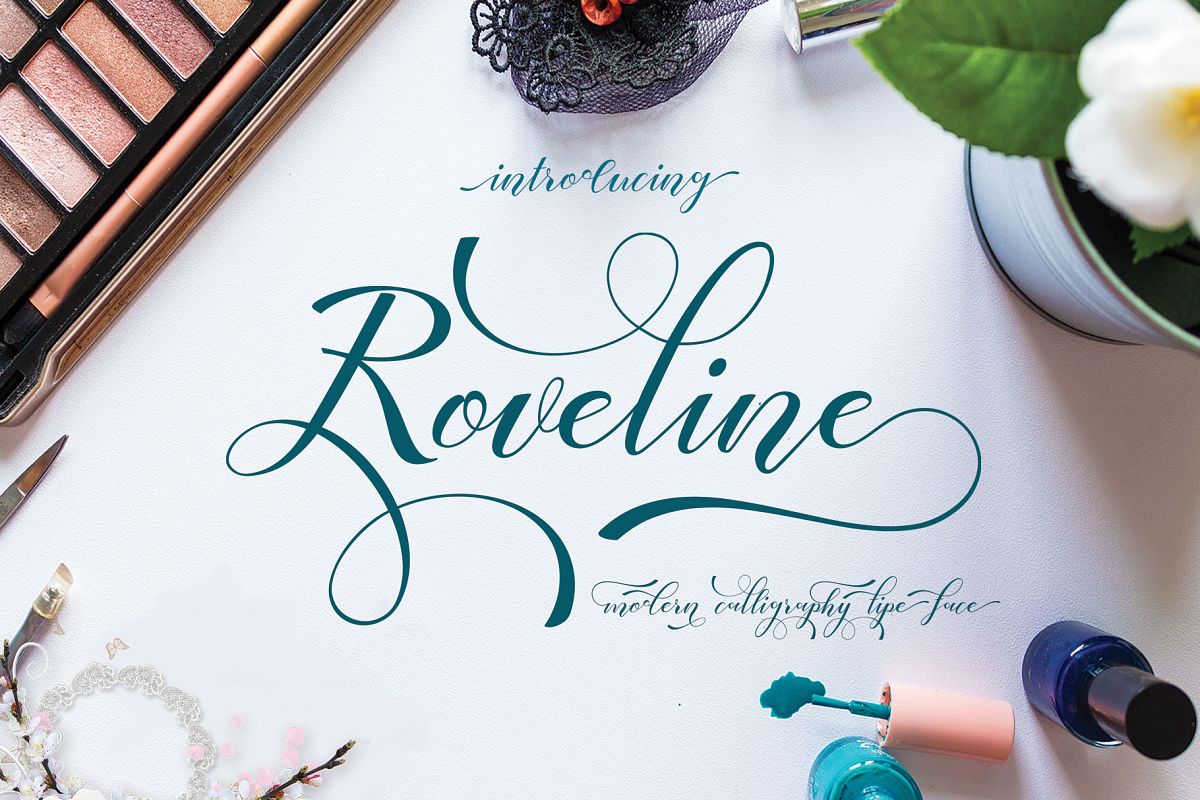
Roveline
Roveline script:
is a new modern variant of calligraphy from handmade text types. present for you to complete your script font collection.
If you are looking to add a touch of elegance to your current project do not miss this one, namely Roveline Script.You'll get yourself a remarkable collection of modern script font, each featuring many OpenType features and multiple languages. Beautiful, modern and made by hand, this magnificent collection are sure to give your toolbox typeface lift plump feasible.
Roveline Script : is a modern calligraphy font. Its beautiful swashes give it an elegant touch and it's fine lines make it perfect for adding an upscale and chic look. It can be used for signatures, logos, correspondences, wedding invitations, letterheads, signage, labels, newsletters, posters, badges, branding, greeting card, and much more!